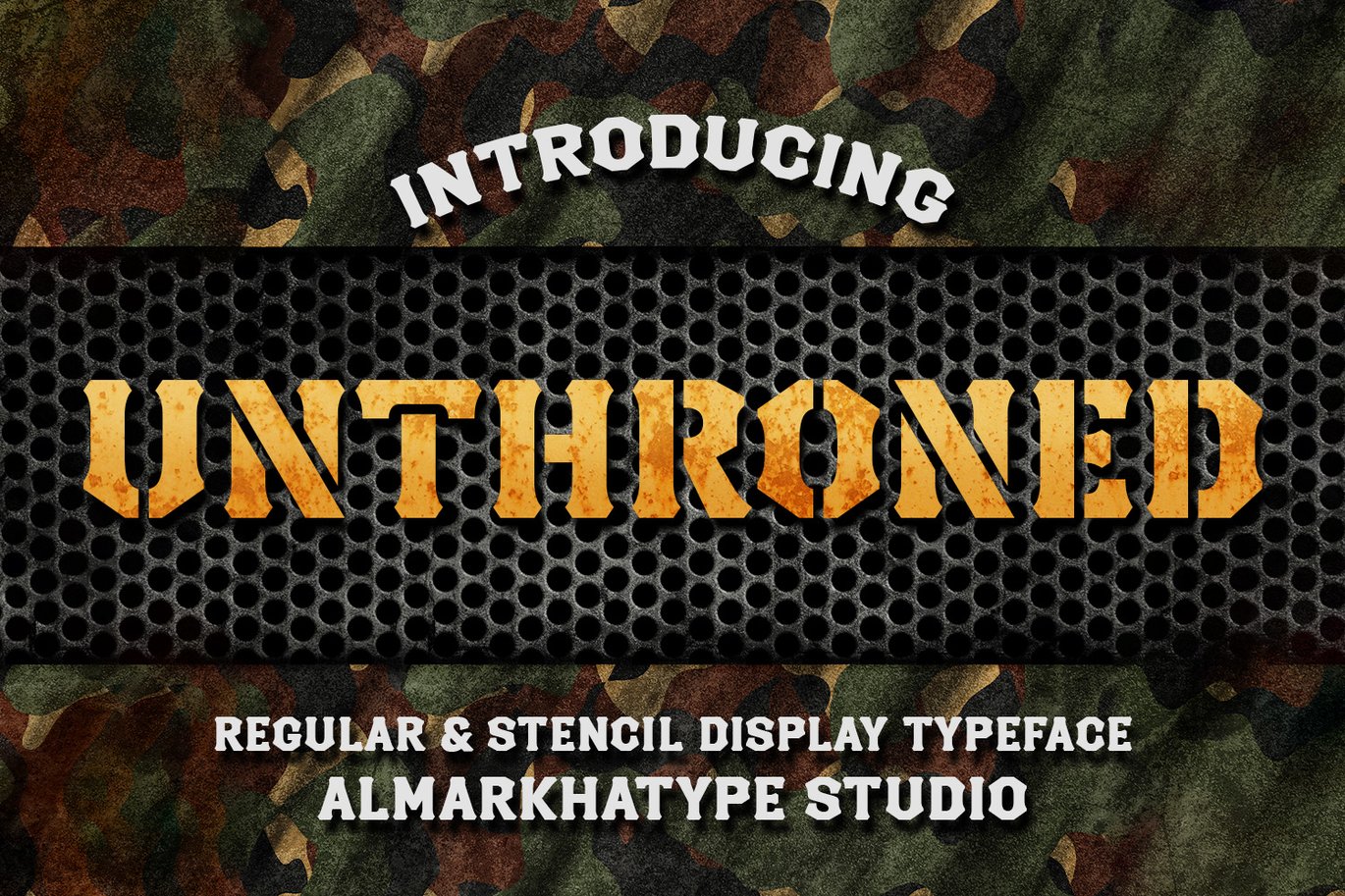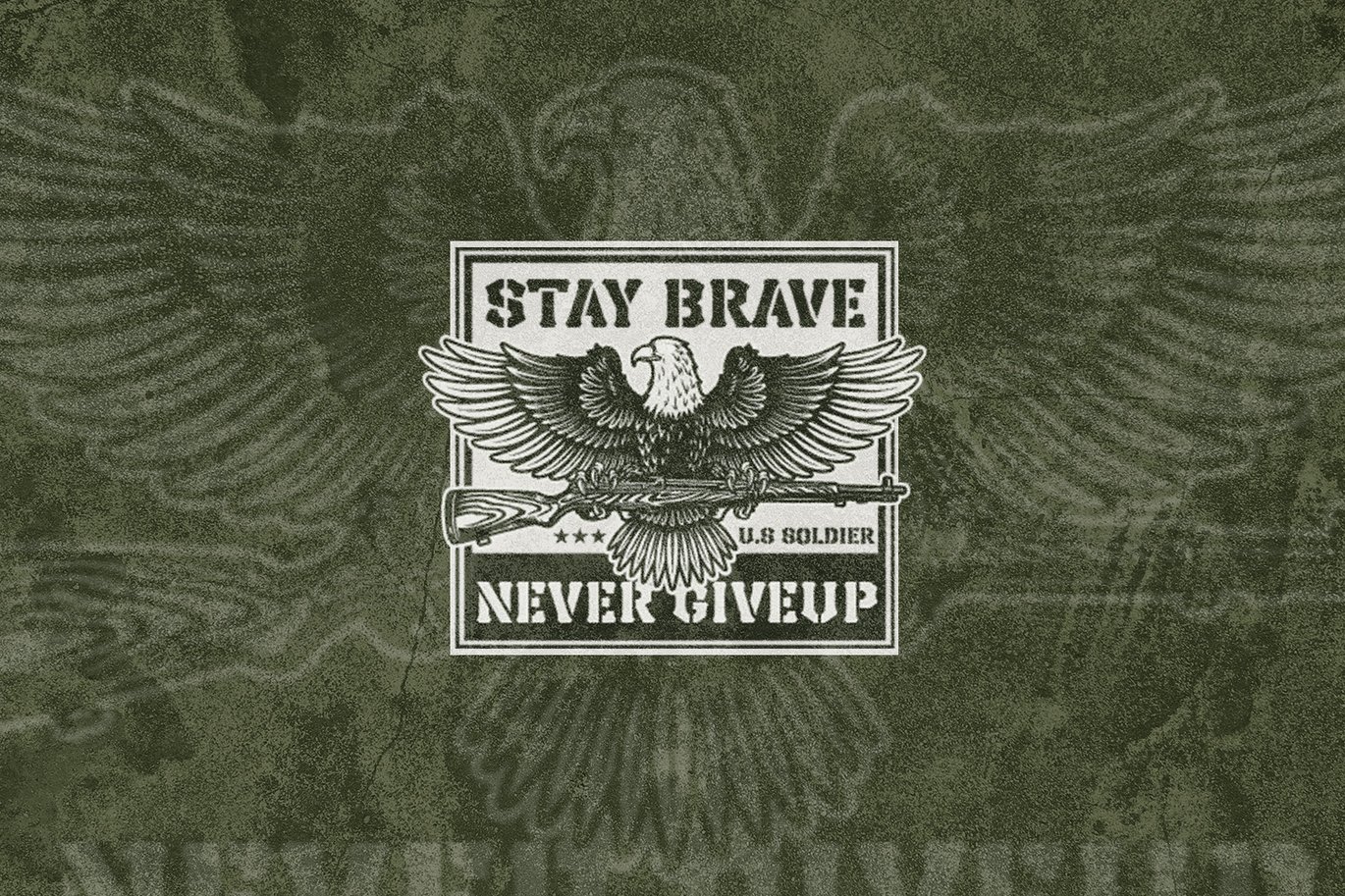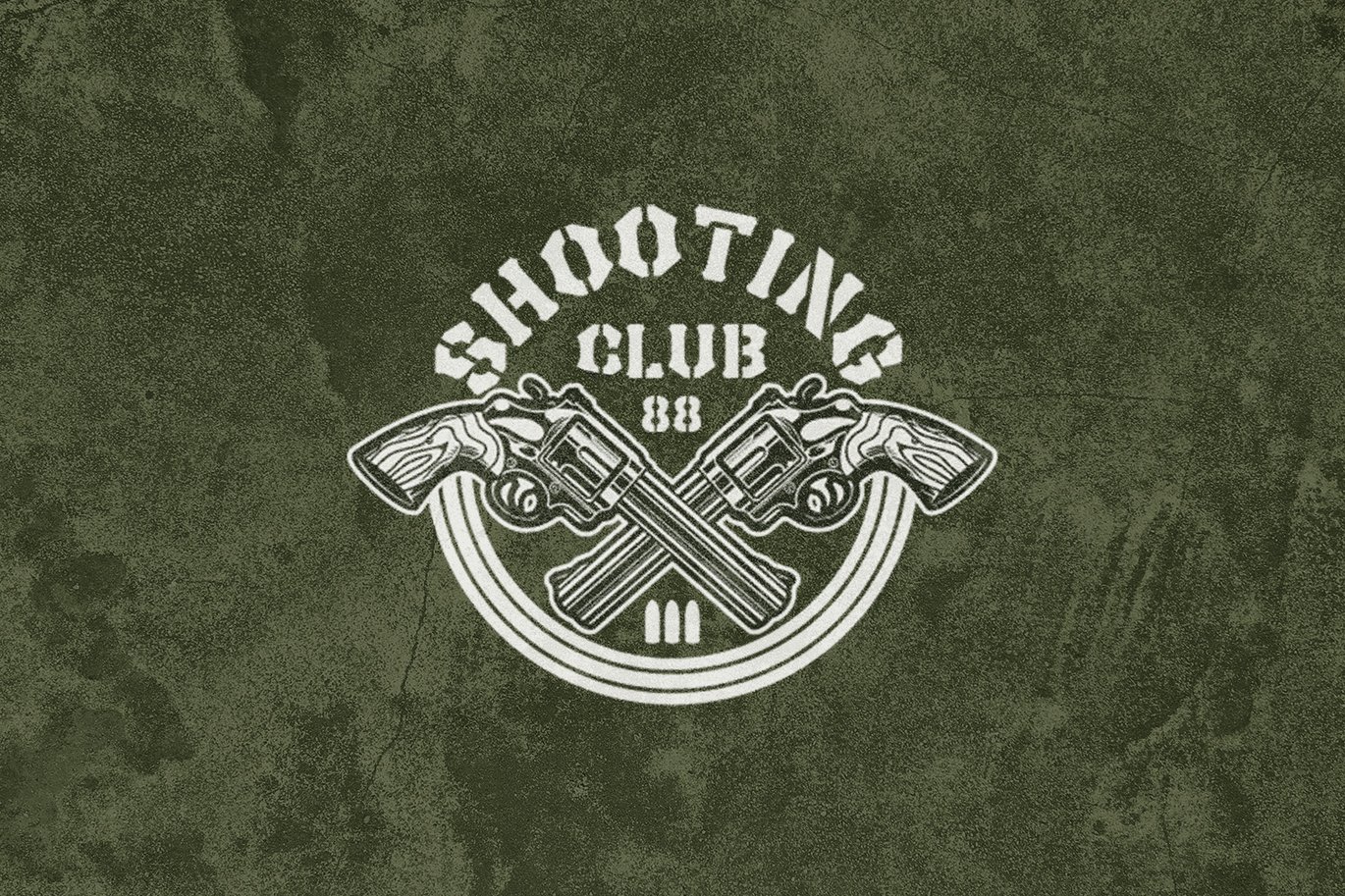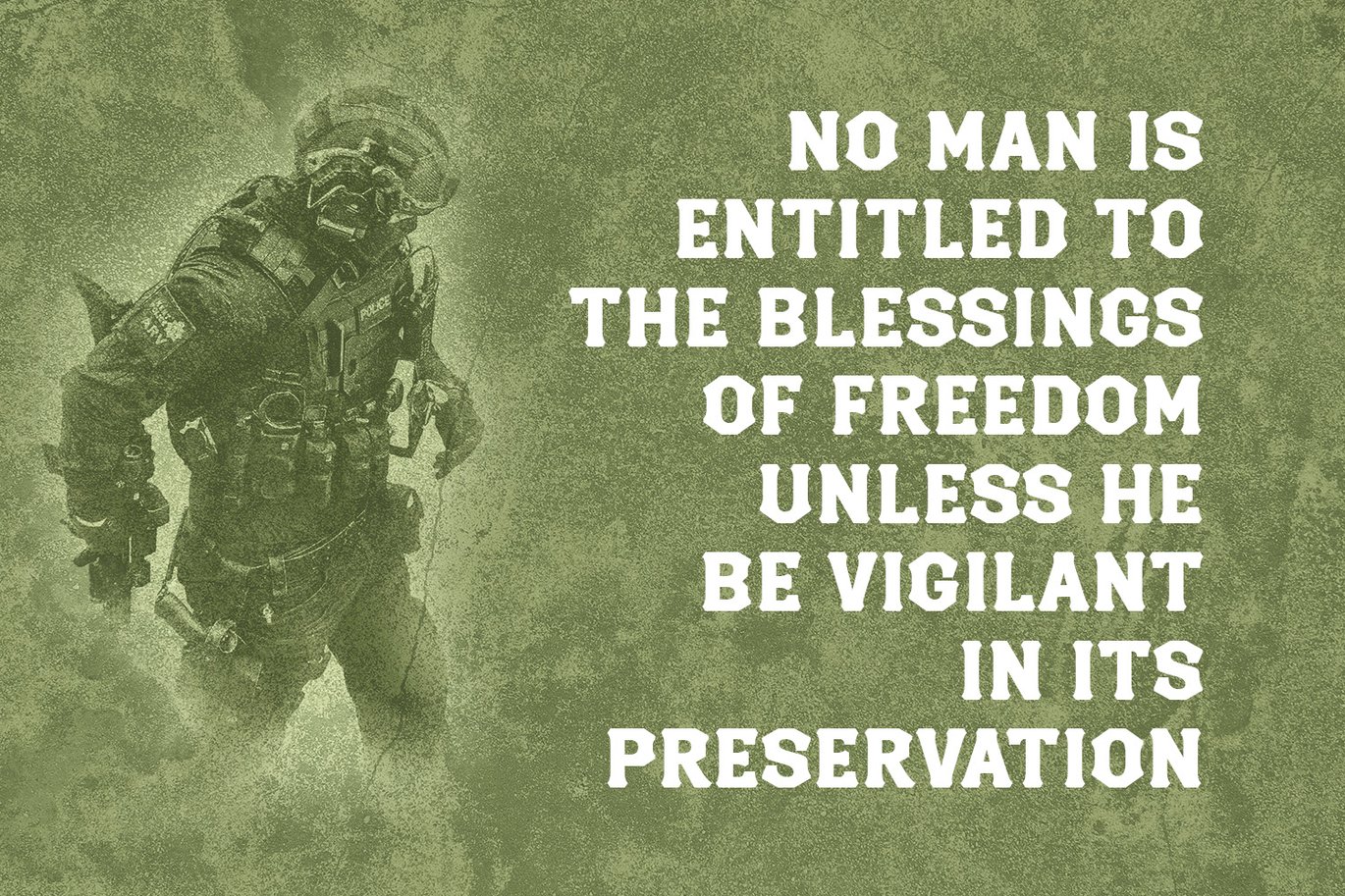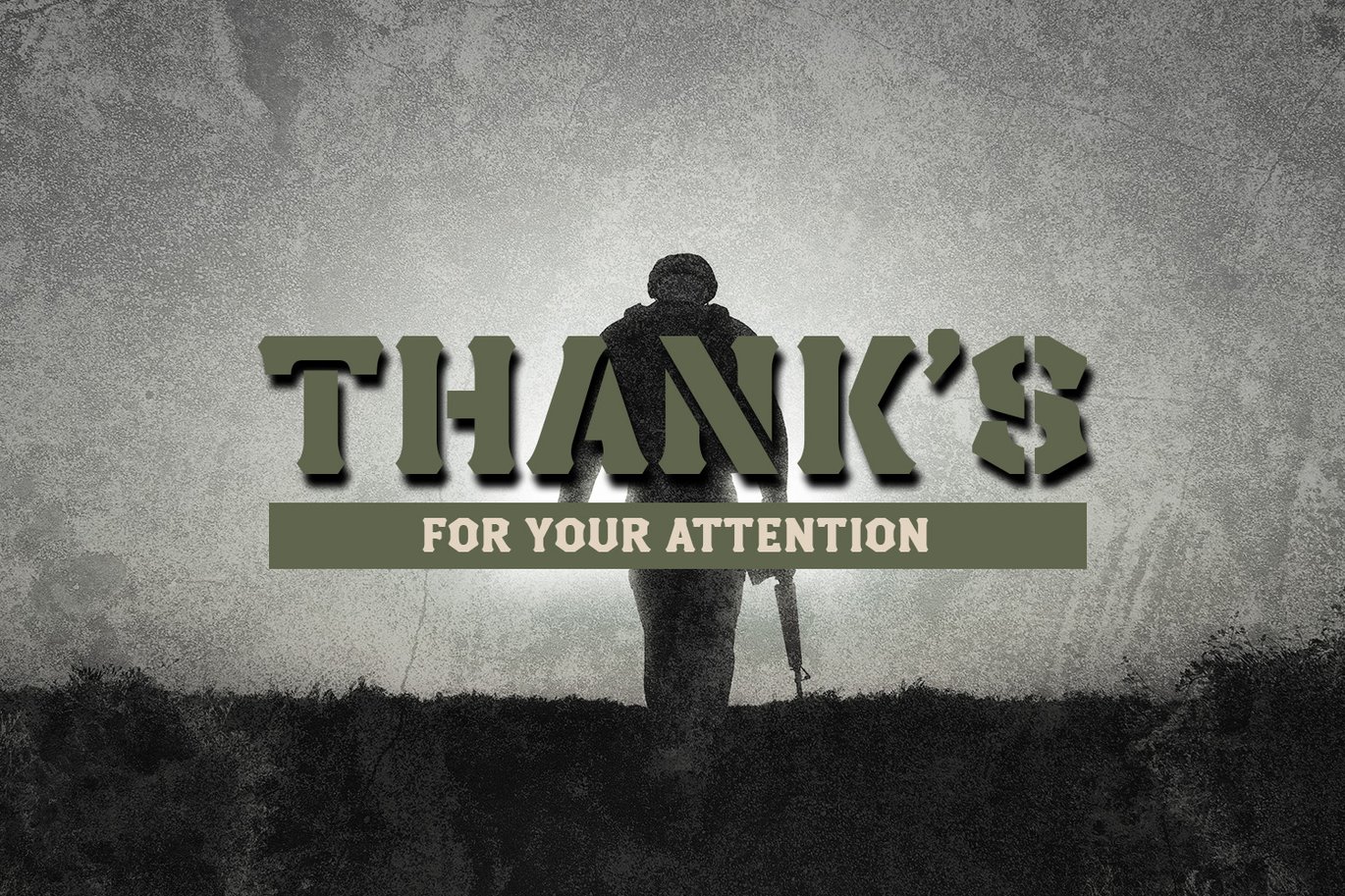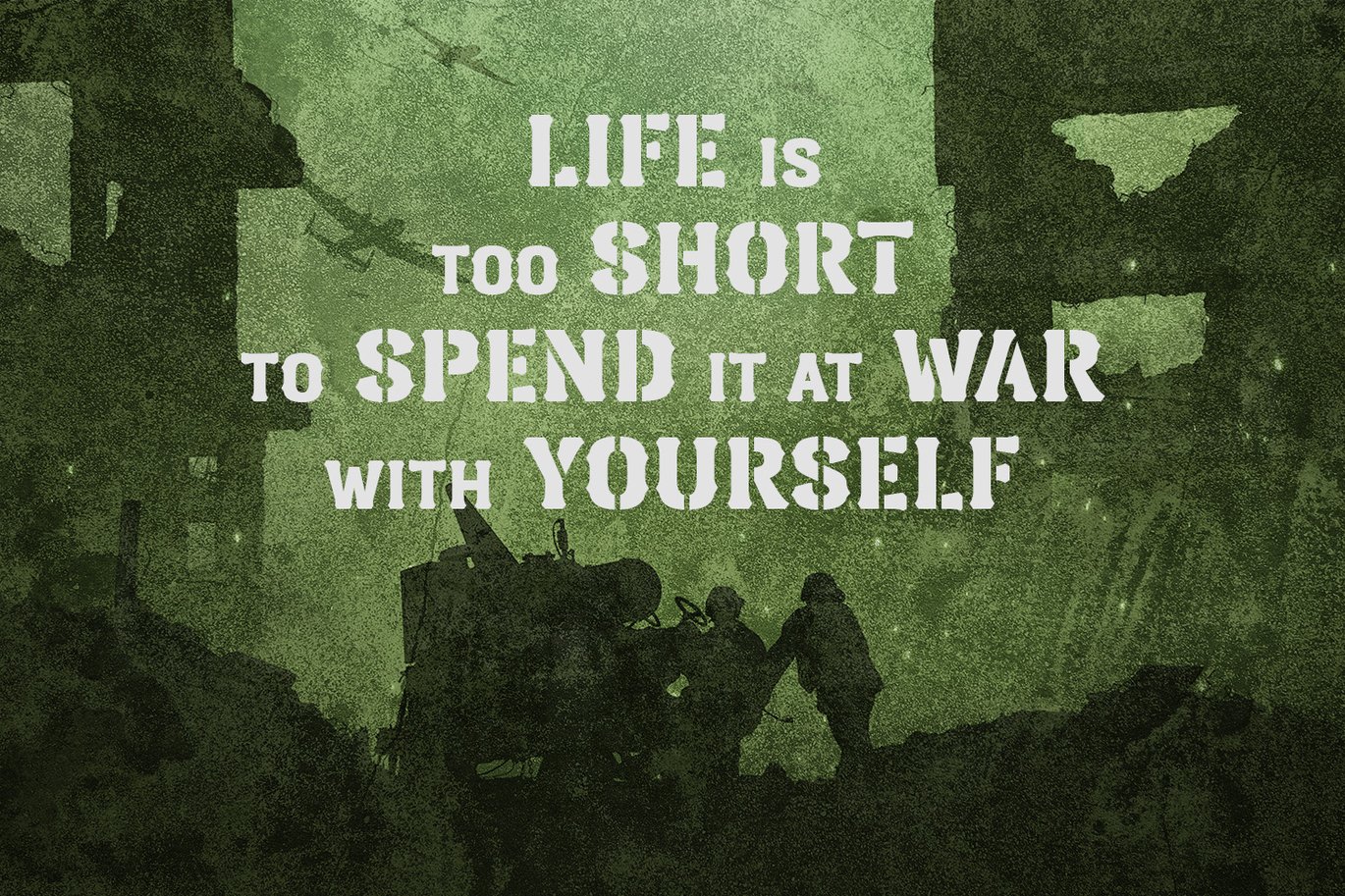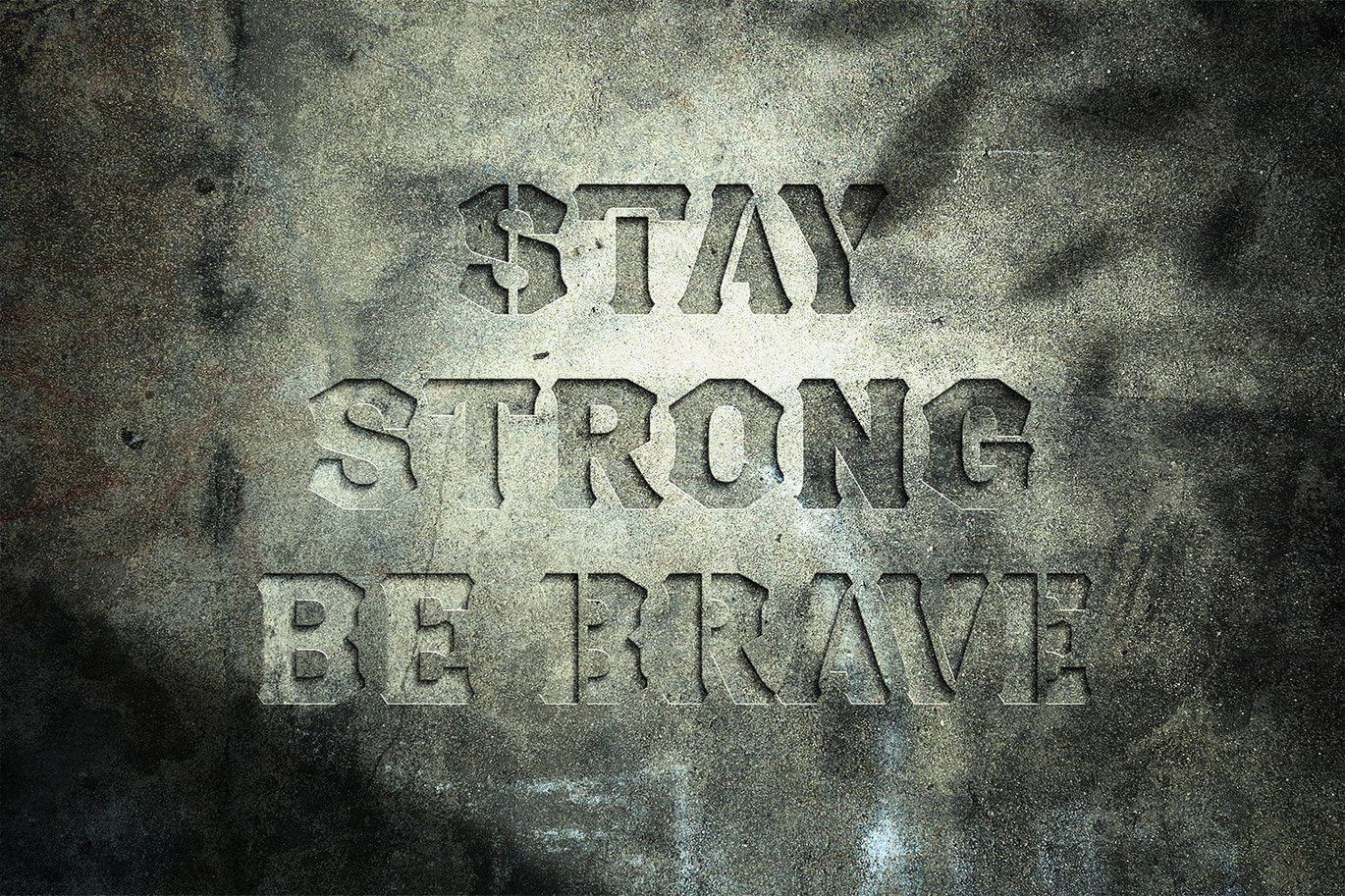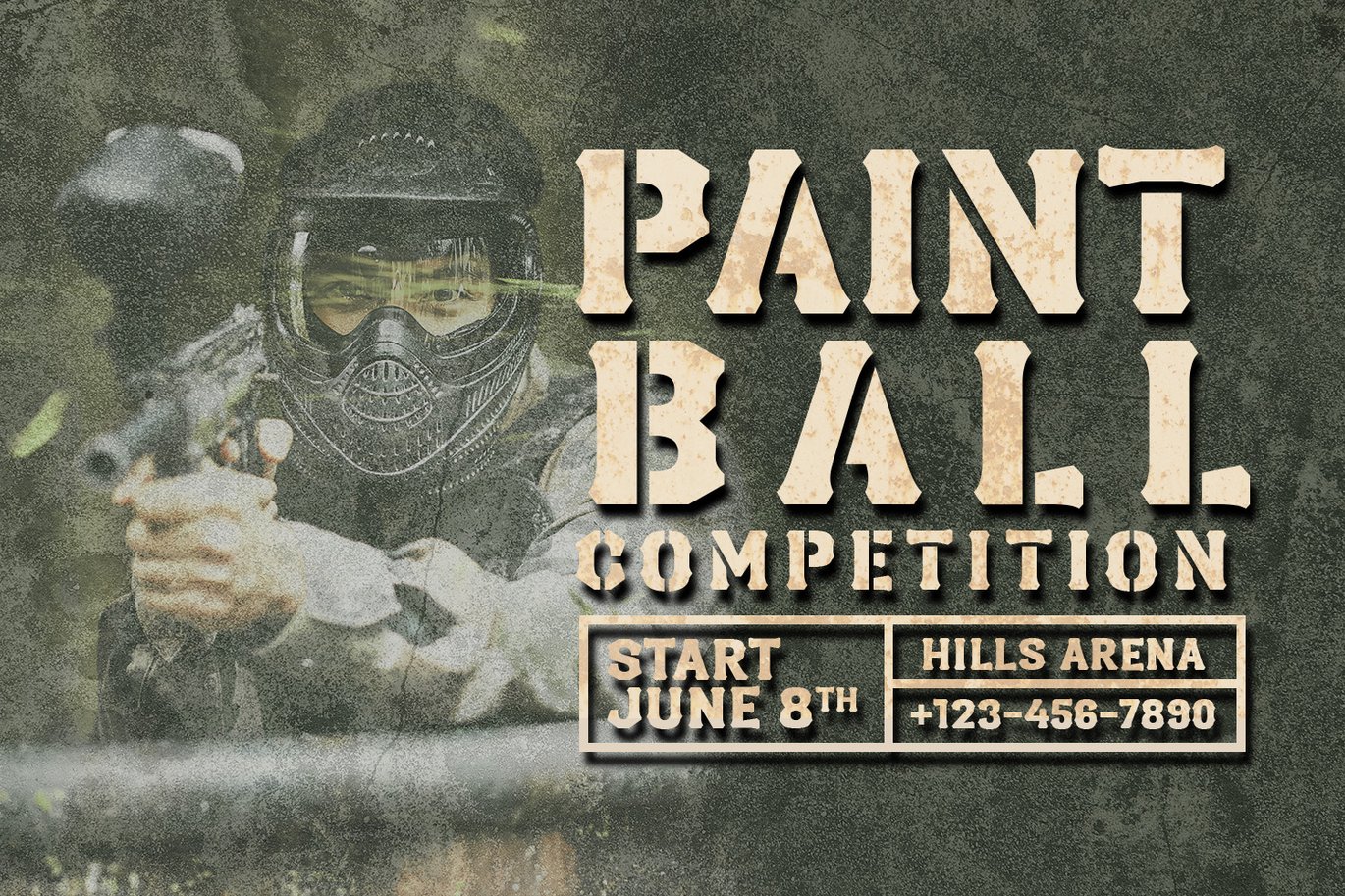
Unthroned – Versatile Military Font
Introducing Unthroned, a vintage serif military-style font inspired by classic vintage military stencil designs. Unthroned comes with two stencil styles and a regular variant, offering versatility for your creative projects.
Crafted as a sturdy foundation for military-themed designs, Unthroned fonts are suited for a diverse array of applications. Utilize them for wallpaper, pattern fills, web backgrounds, and surface textures. They shine in creating impactful army posters, distinctive scrapbooking layouts, captivating invitation cards, label stickers, elegant stationery, unique gift wraps, characterful packaging, stylish clothing designs, decorative buttons and pendants, memorable holiday gifts, fabric prints, and beyond. Unleash the potential of Unthroned in your next project, where every letter tells a story of vintage charm and military flair!